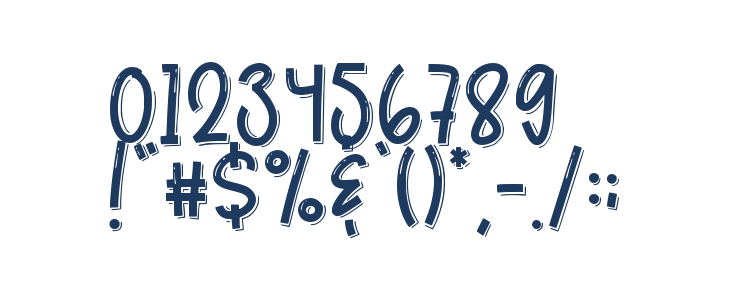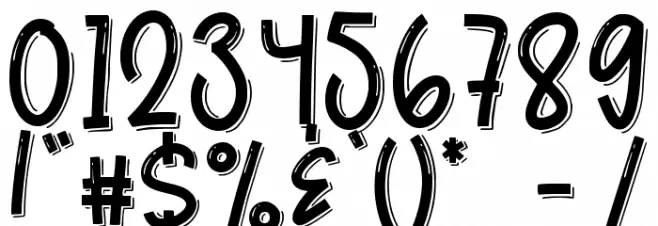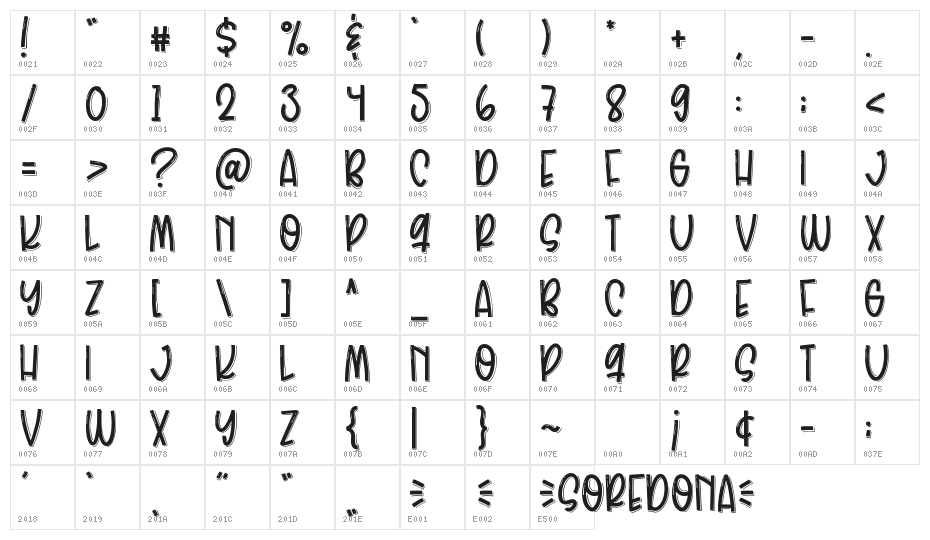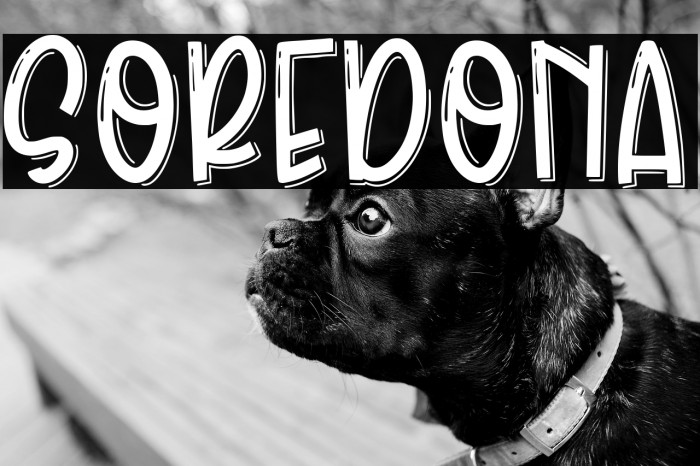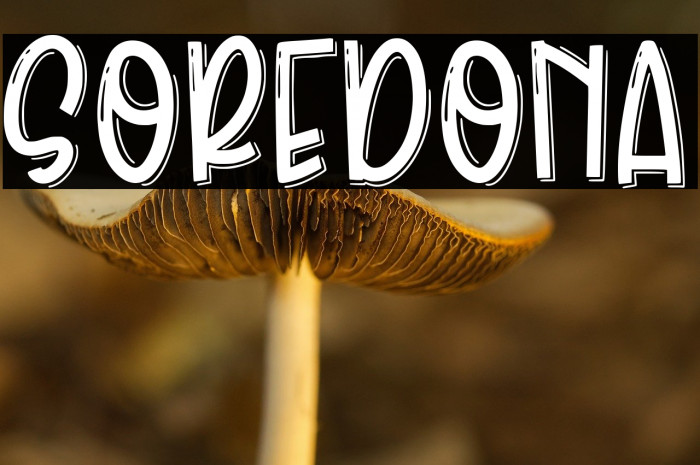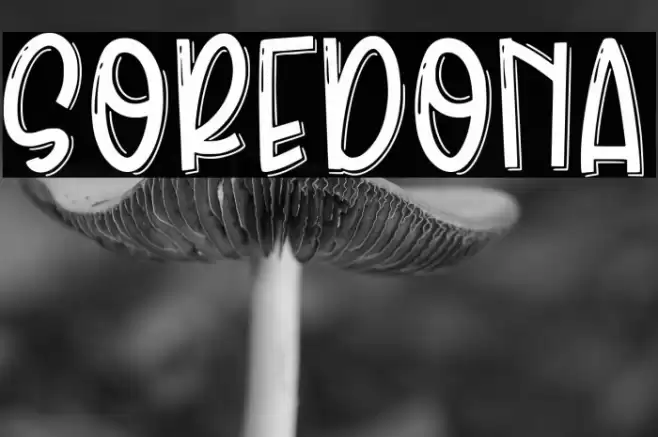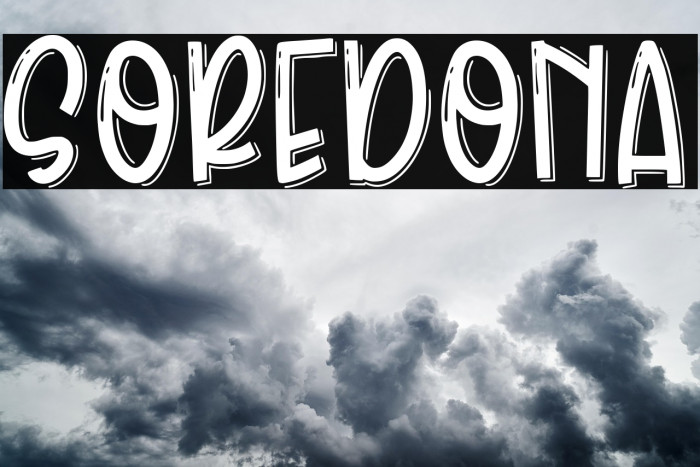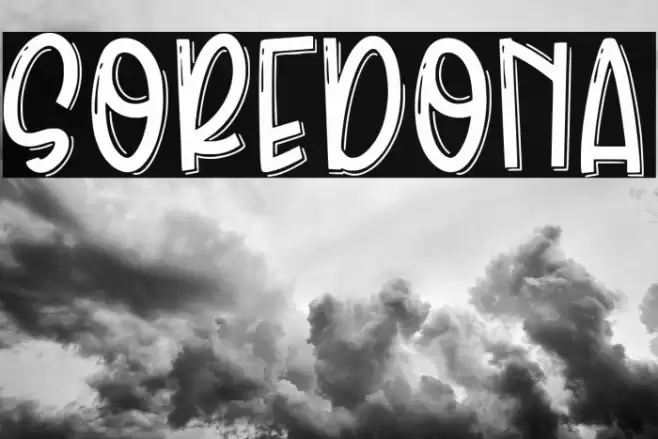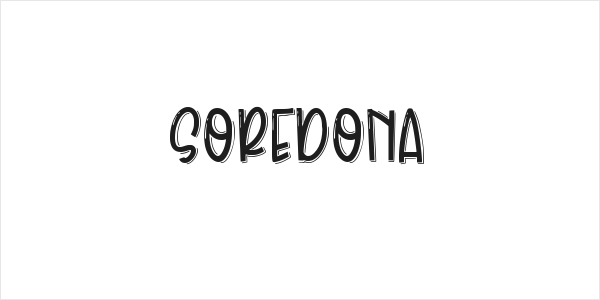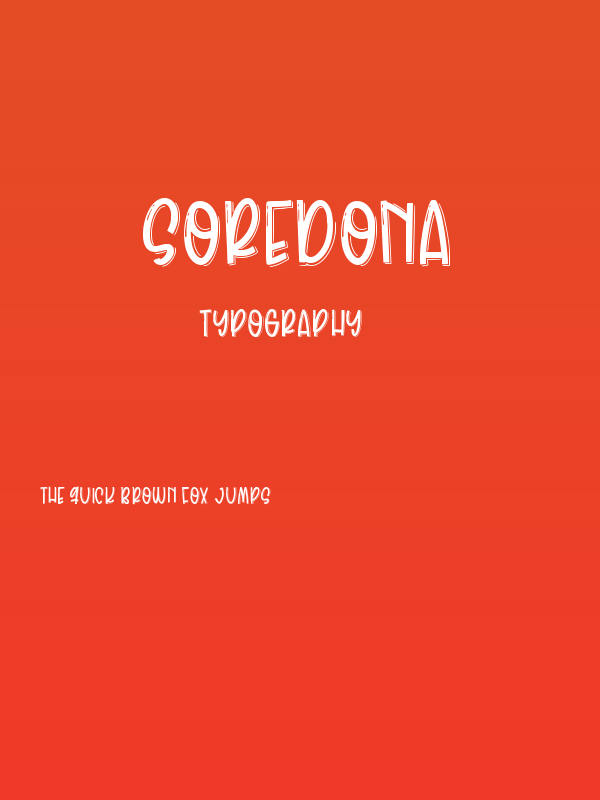
Soredona Font
Soredona Description
This playful and energetic font features bold, hand-drawn characters with a distinctively casual and artistic flair. Each letter is outlined, giving it a three-dimensional effect that adds depth and personality. The uppercase and lowercase letters maintain a consistent style, with rounded edges and a slightly irregular baseline that enhances its informal appearance. The numerals and special characters are equally expressive, making this font versatile for various creative applications. Its unique style is perfect for projects that require a touch of whimsy and creativity.
| Proposed Projects | Ideal for children's book covers, playful branding, event posters, and creative social media graphics. |